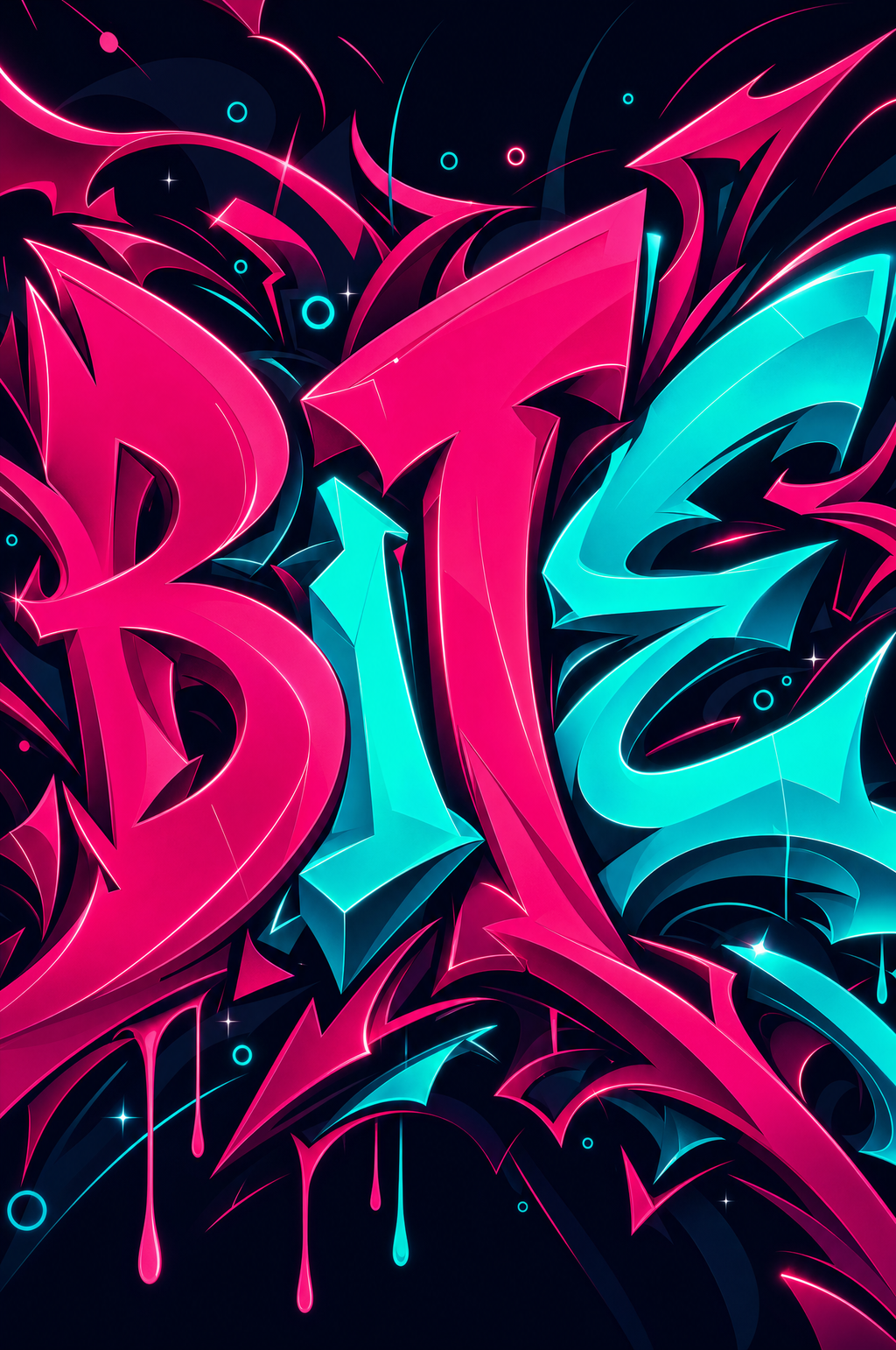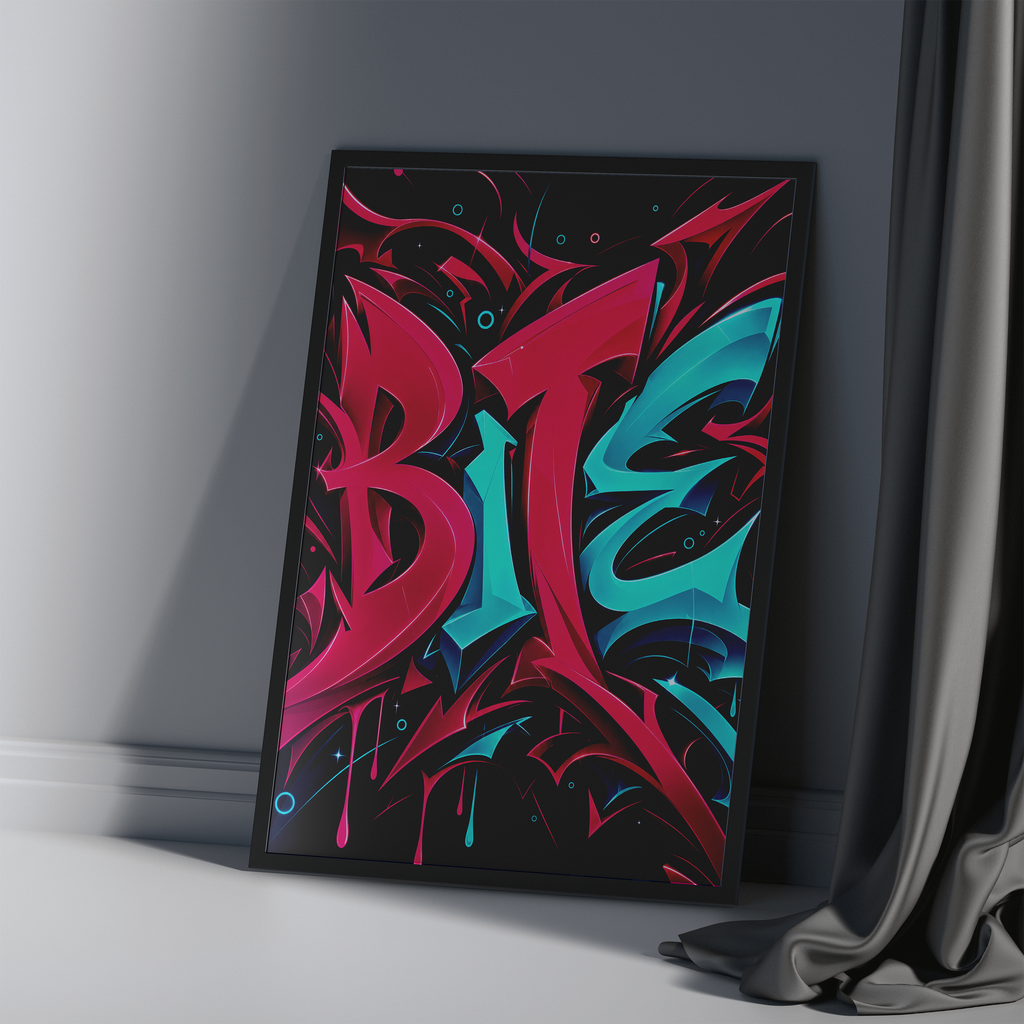
BITE
Premium 61 x 91 cm poster showcasing vibrant neon graffiti lettering in bold magenta and cyan on a deep black background - perfect BITE. Dynamic shapes, glossy highlights, and dripping paint details create energetic, street-style visual impact—ideal for game rooms, studios, or contemporary interiors.